Sharp Type's Chantra Malee On Selling a Legacy Font Library and Starting Afresh
Chantra Malee interviewed in TYPE01 Magazine Issue 10
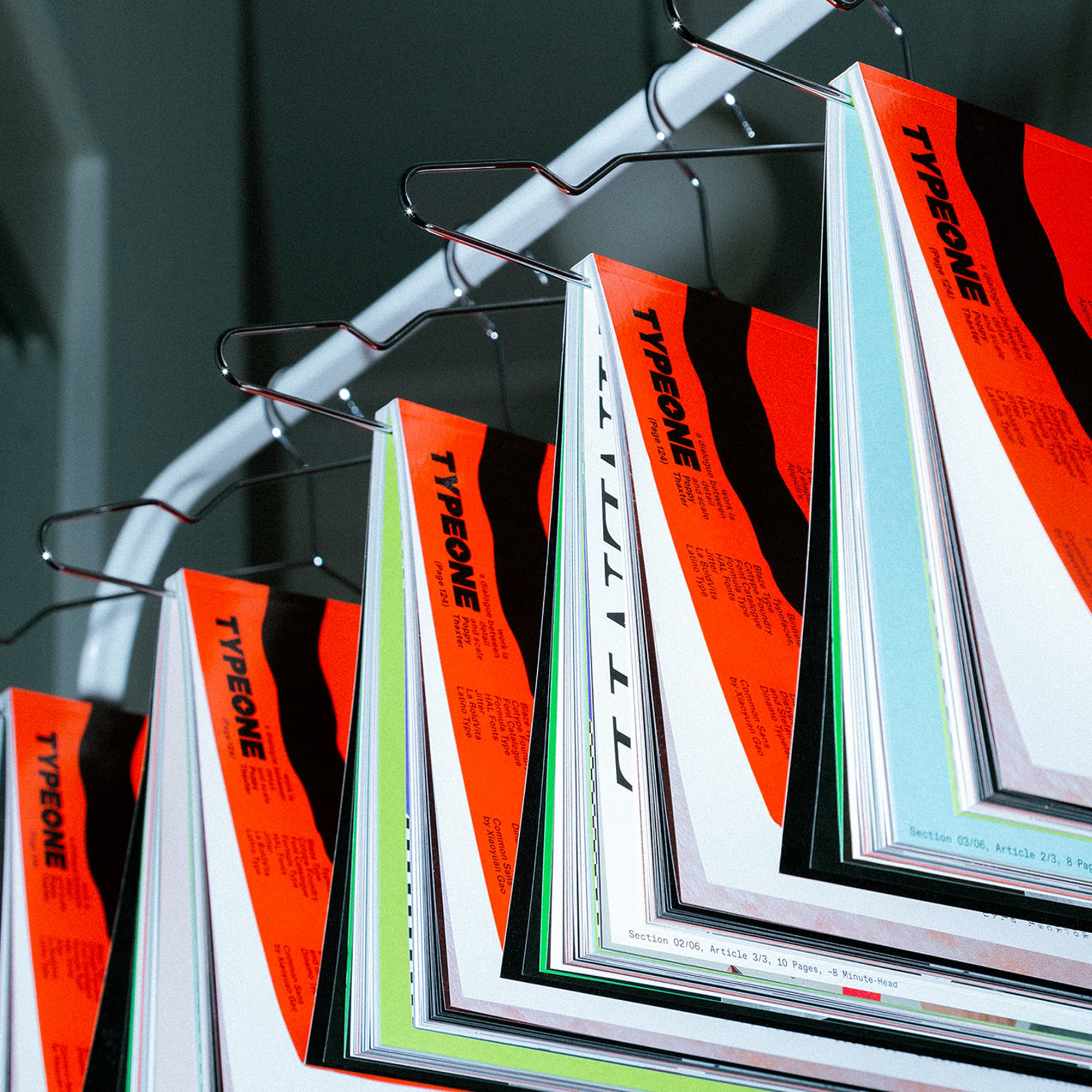
I founded Sharp Type, a New York City type design foundry, with my partnerand Type Director Lucas Sharp, in 2015, launching from a tiny 400 sq ft apartment in Manhattan's bustling Chinatown. Young and scrappy, we poured our excitement into a true labor-of-love "mom and pop" shop. Fast forward to 2024, and we sold nearly our entire library to Monotype, one of the world's largest commercial font businesses.
Let's be clear: Sharp Type remains fully independent, with full ownership in our hands, tasked with rebuilding our font library from scratch. The sale sparked a mix of reactions - many cheered us on, reaching out with congrats and new collab interest; some gave us the side eye; most stayed quiet - but I'm just here to share what fuels our own path.
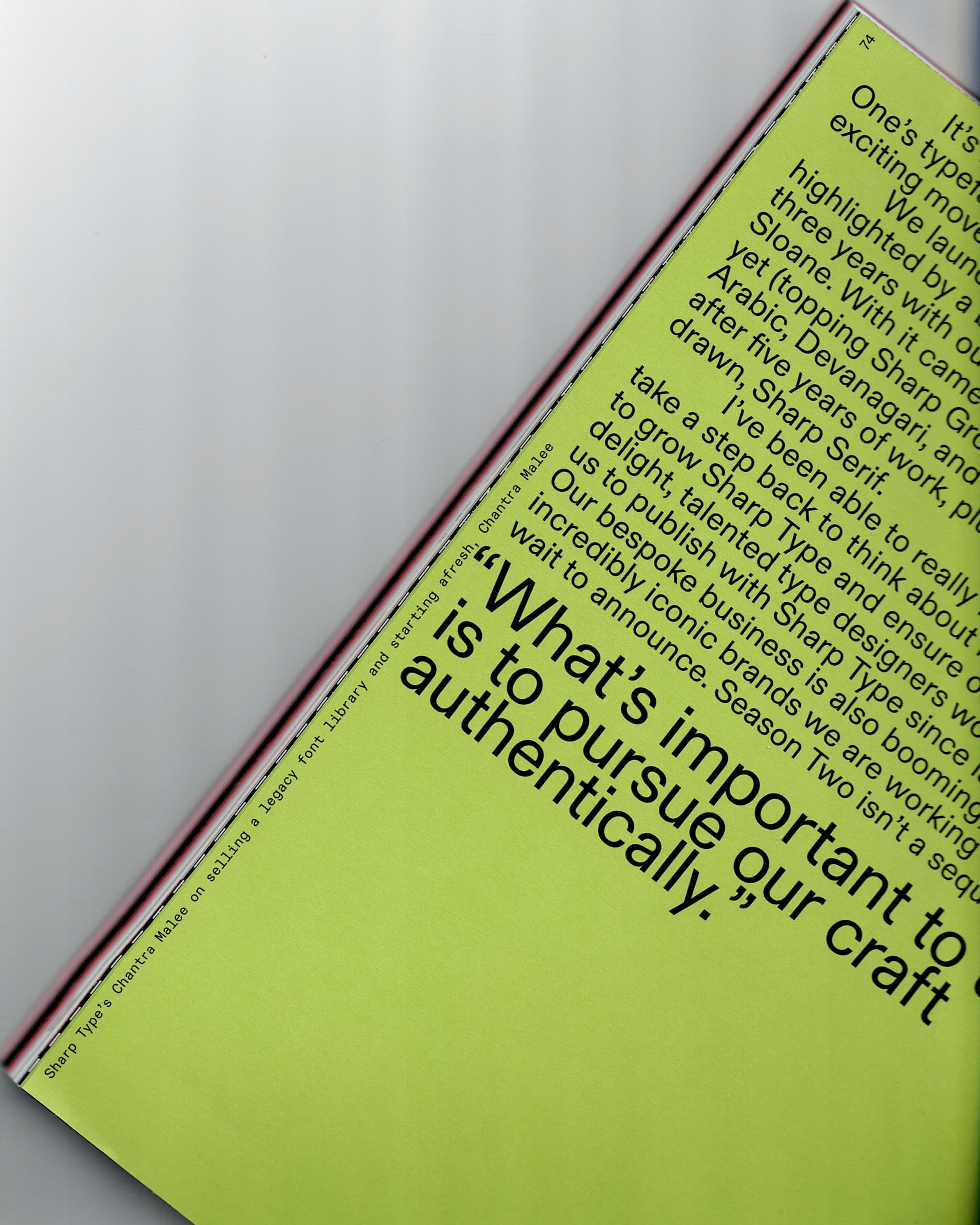
“We found ourselves less like designers and builders, and more like archivists tending to a legacy that was pulling us in a different direction.”
At Sharp Type, we've always kept our vision simple: chase quality type design relentlessly while encouraging and supporting our team. Our early 'Season One' releases, born from hundreds of hours of hard work and excitement for the craft, drew notice - and clients. We built it, and they did, indeed, come. But building from the ground up has a catch: while those early typefaces were milestones of our grit and vision, over time maintaining them started slowing down our forward momentum. We found ourselves less like designed and builders, and more like archivists, tending to a legacy that, while important, was starting to pull us in a different direction.
It's easy to support the underdog in the indie vs. corporate machine binary. This fits me to a tee. I grew up helping my parents run their retail shops, where they taught me the pride of building something independent. But as you grow a business and a family, your responsibilities and obligations swell too. your role as a business owner shifts. Where we once chased creativity full-time, we were now struggling a growing team and bigger expectations.
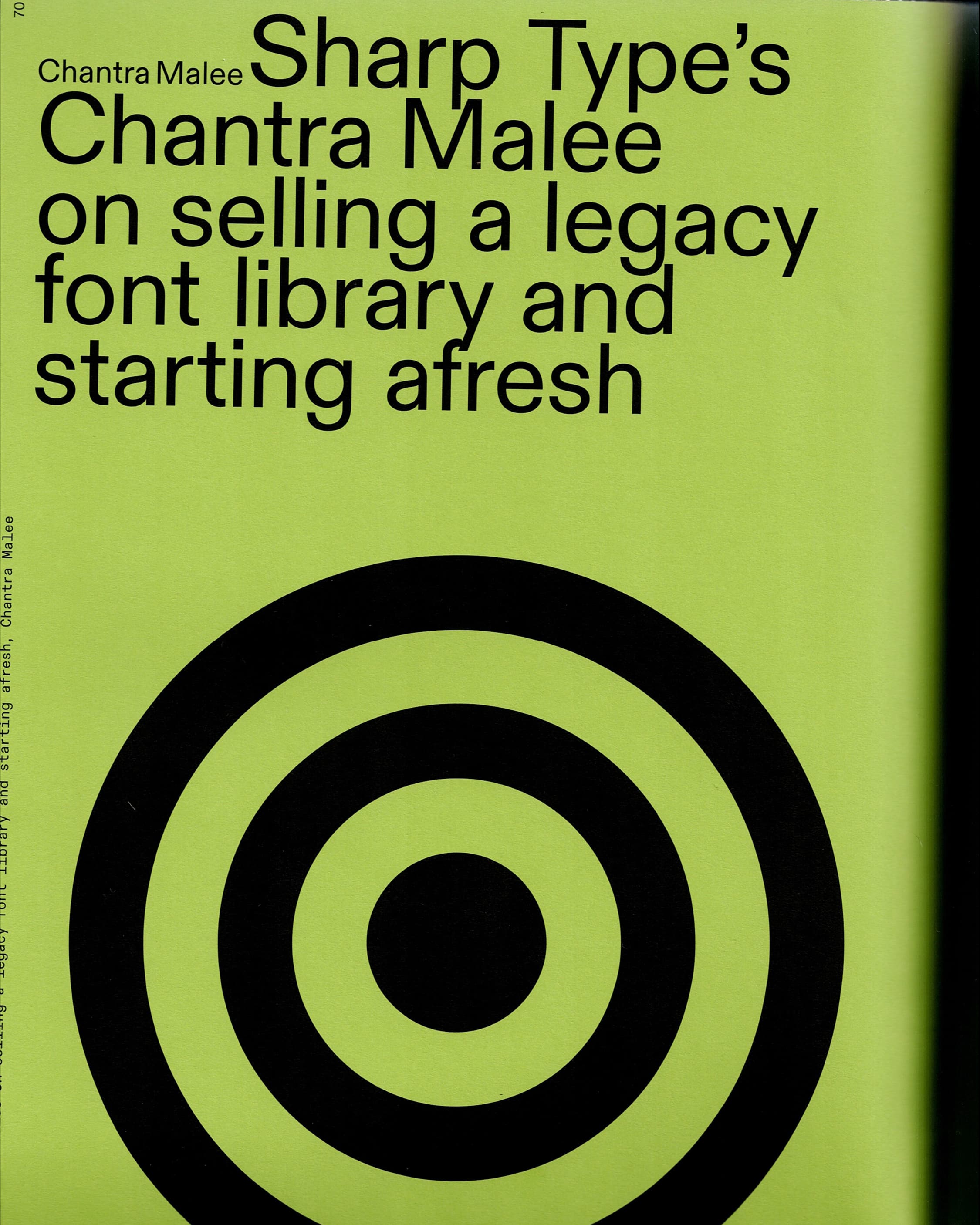
When the opportunity came our way, it took some real soul-searching to figure out what was right for us. But here's where we landed: Season One proves we can create good work we're proud of - so why not take the chance to rebuild from scratch? It might sound bold, but that's exactly what motivated us. The idea of shaking things up, channeling that mix of fear and excitement into something fresh, and doing it better this time with everything we've learned gave us the spark we needed. With this in mind, Monotype's proposition was exciting.
Let's be real: owning a type foundry isn't a conventional gig. It lacks the job security of other fields. The indie type scene loves cheering the underdog, but we've come to learn there's always more to the story. And looking at the future, with the threat AI poses to all creative industries, and the weak IP protections in our country (US), there may come a time when the entire independent type scene in the west comes to thank their lucky stars that we have an institution like Monotype around - likely the only one operating at the scale to tackle large legal battles over AI and IP. We have no way of knowing how this will all play out, but one thing is for sure: our industry faces some tough challenges ahead.
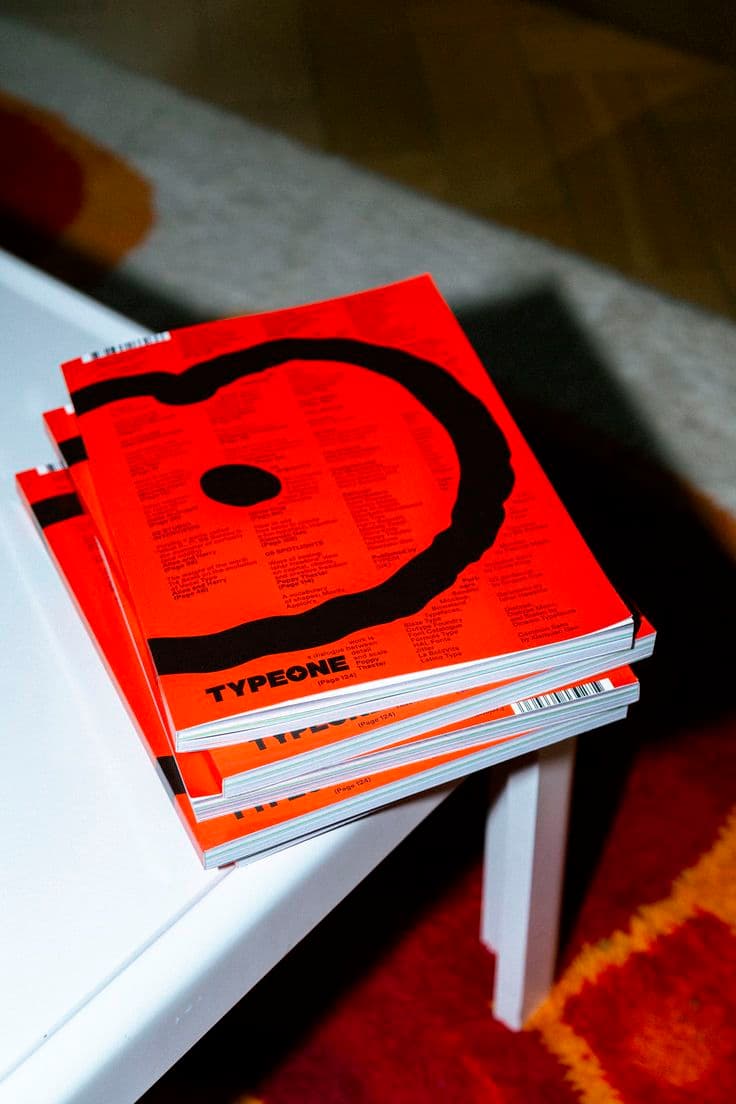
It’s been just over a year since the acquisition of Season One’s typefaces, and in the last 18 months, we’ve had a lot of exciting movement at Sharp Type.
We launched our first Season Two typefaces, highlighted by a brand-new website we’d been crafting for three years with our talented lead systems designer, Justin Sloane. With it came Sharp Earth - our most robust typeface yet (topping Sharp Grotesk) - covering Latin, Pan Euro, Thai, Arabic, Devanagari, and even Japanese (developed in-house) after five years of work, plus Lucas’s favorite serif he’s ever drawn, Sharp Serif.
I’ve been able to really focus on strategy again, and take a step back to think about medium and long-term goals to grow Sharp Type and ensure our foundry’s longevity. To our delight, talented type designers worldwide have approached us to publish with Sharp Type since last year’s big news. Our bespoke business is also booming, and we have two incredibly iconic brands we are working with that we can’t wait to announce. Season Two isn’t a sequel - it’s a rebirth.
“What’s important to us is to pursue our craft authentically.”
After a minute in this industry, I’ve seen a lot of different approaches to running a type foundry. Some founders pour their energy into a bold public presence, engaging directly with their audience on social media. Others thrive by pushing free fonts to hook users or rolling out steep discounts to keep momentum.
We’re seeing subscription models pop up more often, as well as platforms to release unfinished work in a semi open-source model. These different moves show every foundry’s got its own hustle - ours included. What’s important to us is to pursue our craft authentically. That’s the only thing that matters. We’ve never been more energized and productive than we are right now, with a packed year ahead - new collabs we’re dying to share, a Volume Two book, some incredible bespoke projects to announce, and more - something to be grateful for after ten years in the trenches. Don’t let fear of scrutiny hold you back - you’ll miss out.